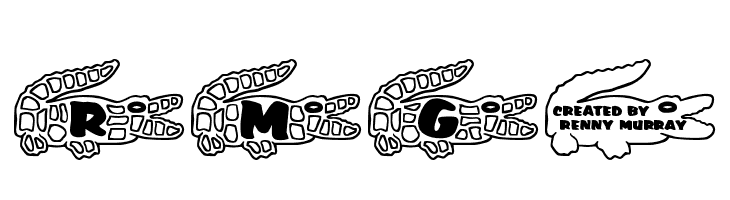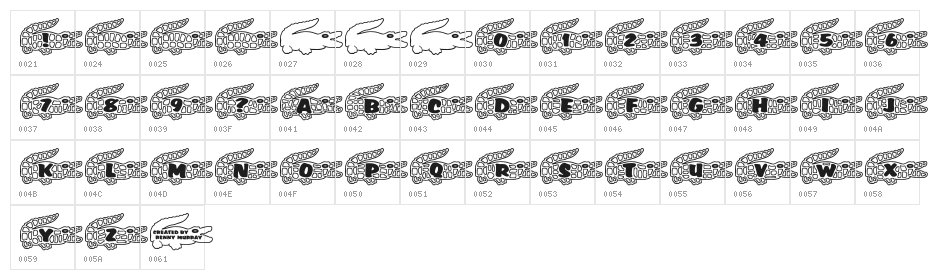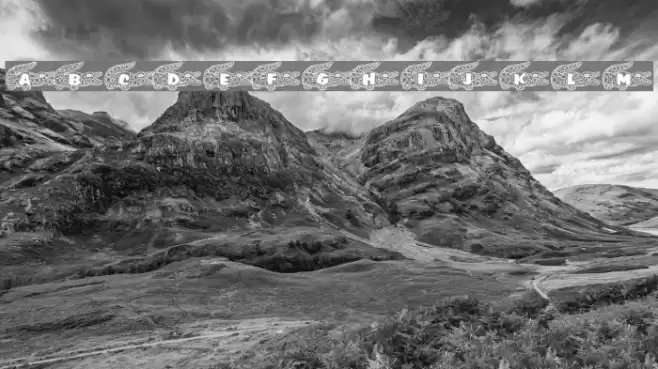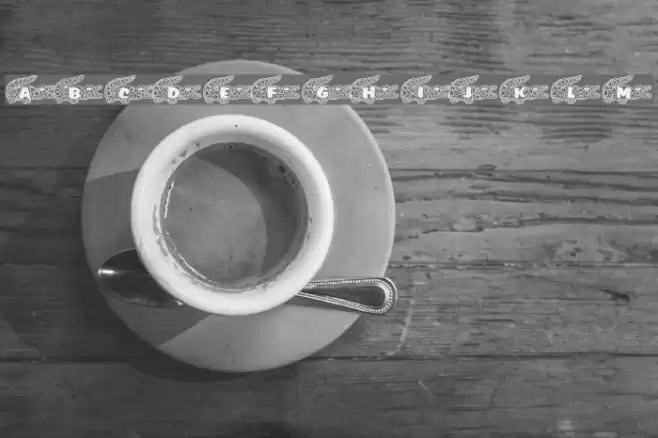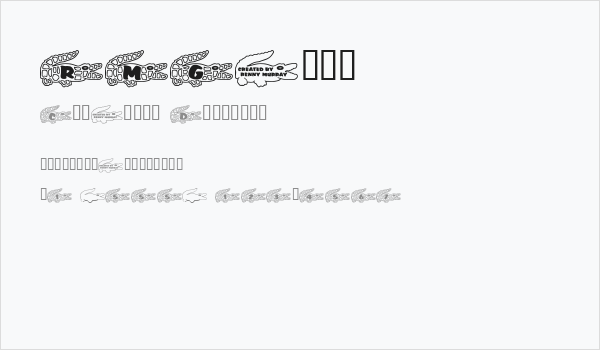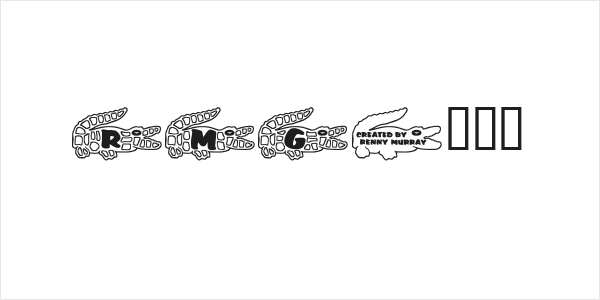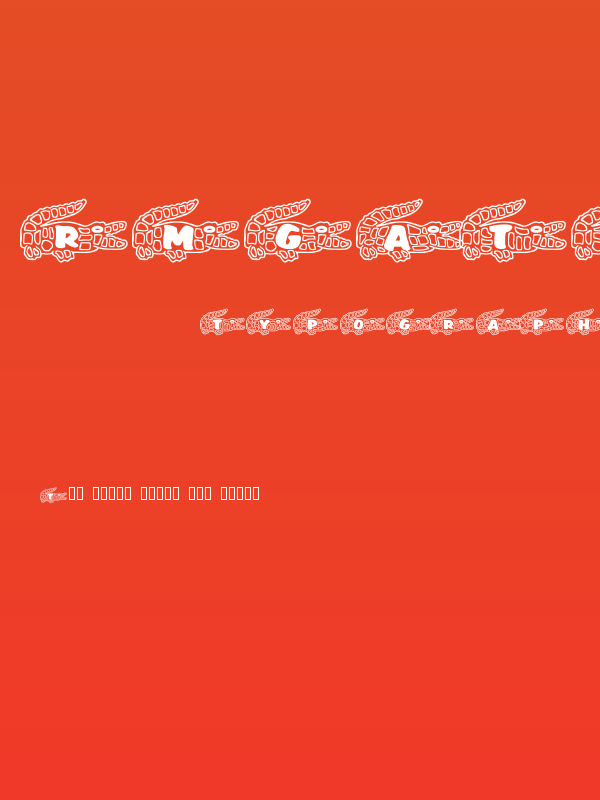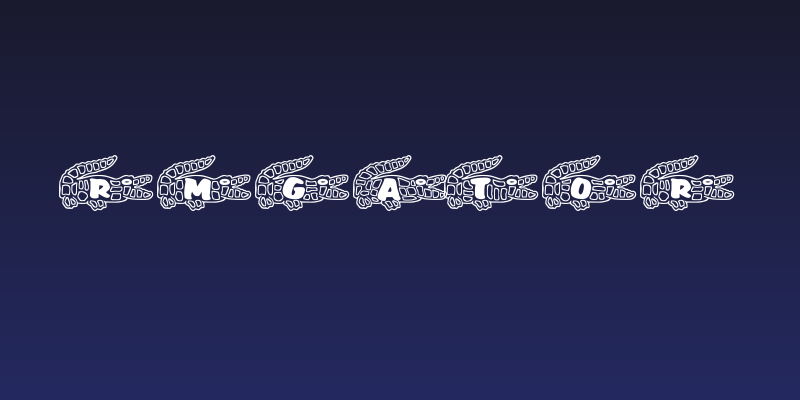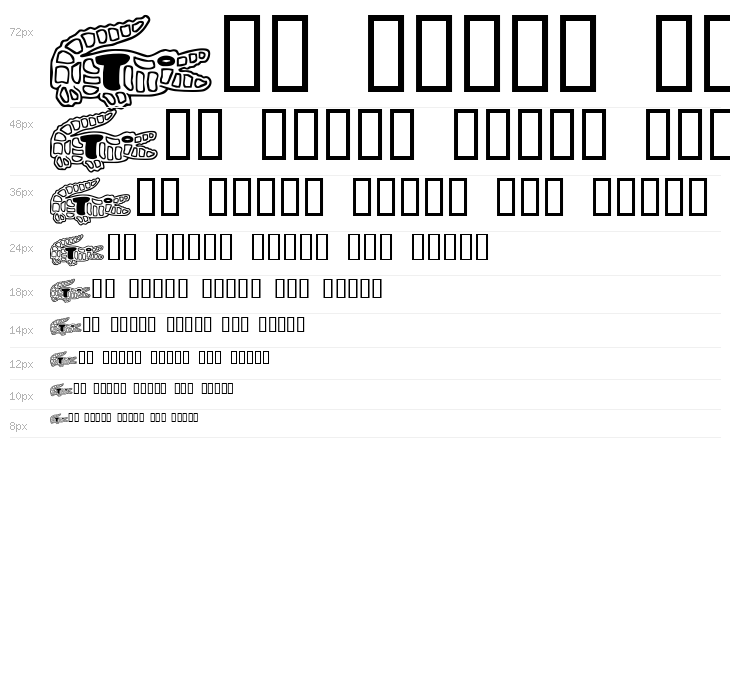
RMGator Font
RMGator Description
This design features a playful and whimsical alligator motif that repeats across the image. Each alligator is stylized with a cartoonish appearance, adding a fun and lighthearted touch. The central alligator includes the text 'CREATED BY RENNY MURRAY' within its body, suggesting a personalized or branded element. The design is consistent and repetitive, making it suitable for decorative purposes. The overall style is bold and graphic, with a clear emphasis on the alligator shape.
| Use Case | Logos, Decorative elements |
| Proposed Projects | Ideal for children's book illustrations, playful branding, or themed party decorations. |